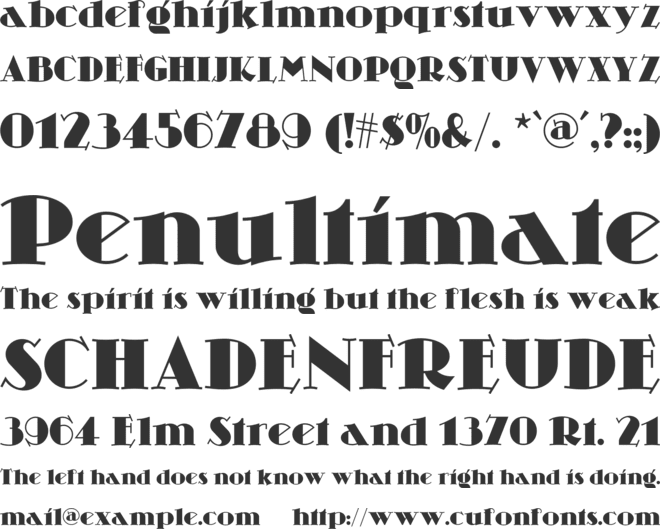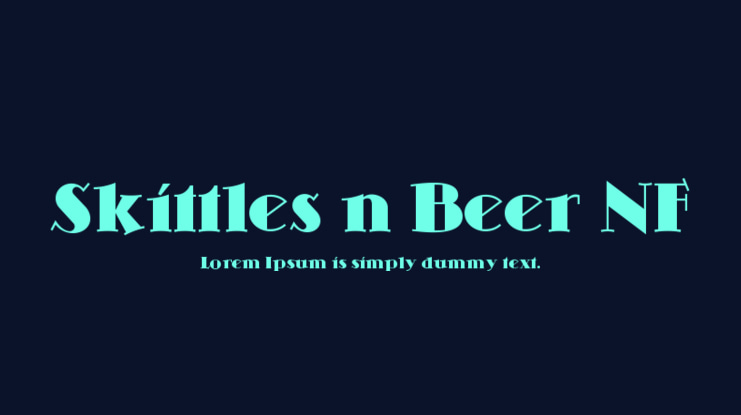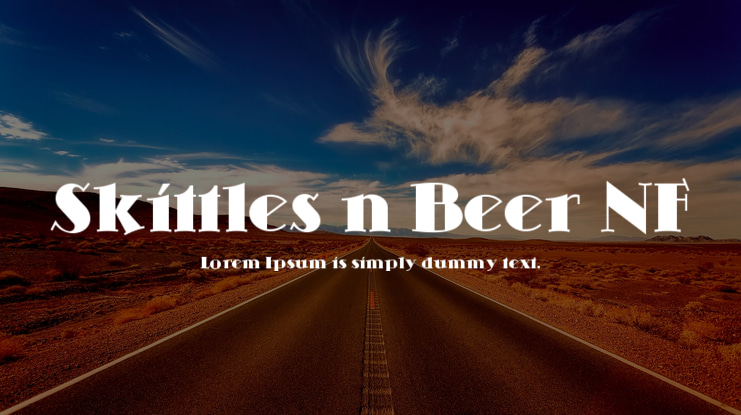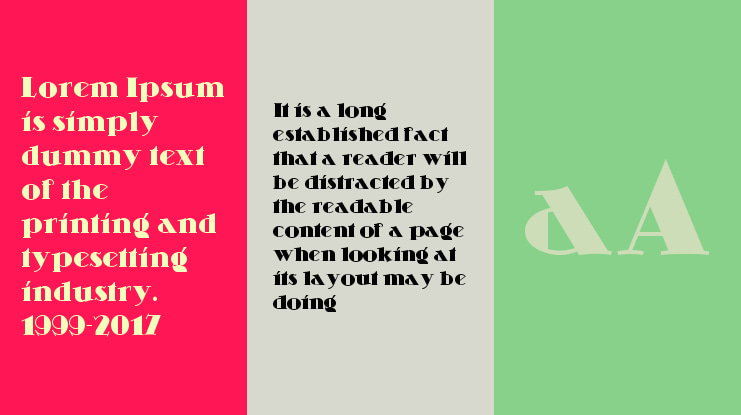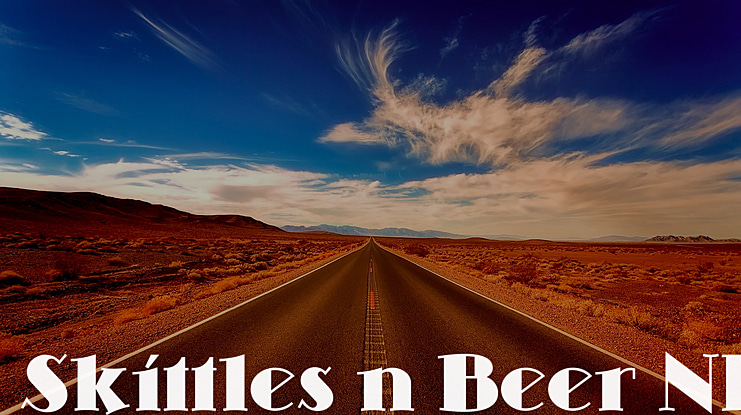
Skittles n Beer NF Font
Handlettering on a 1929 brochure for the P&O British-India Steamship Line inspired this tiddly typeface. Art Deco sensibilities combine with a playful attitude to yield a delightful and amusing headline font.